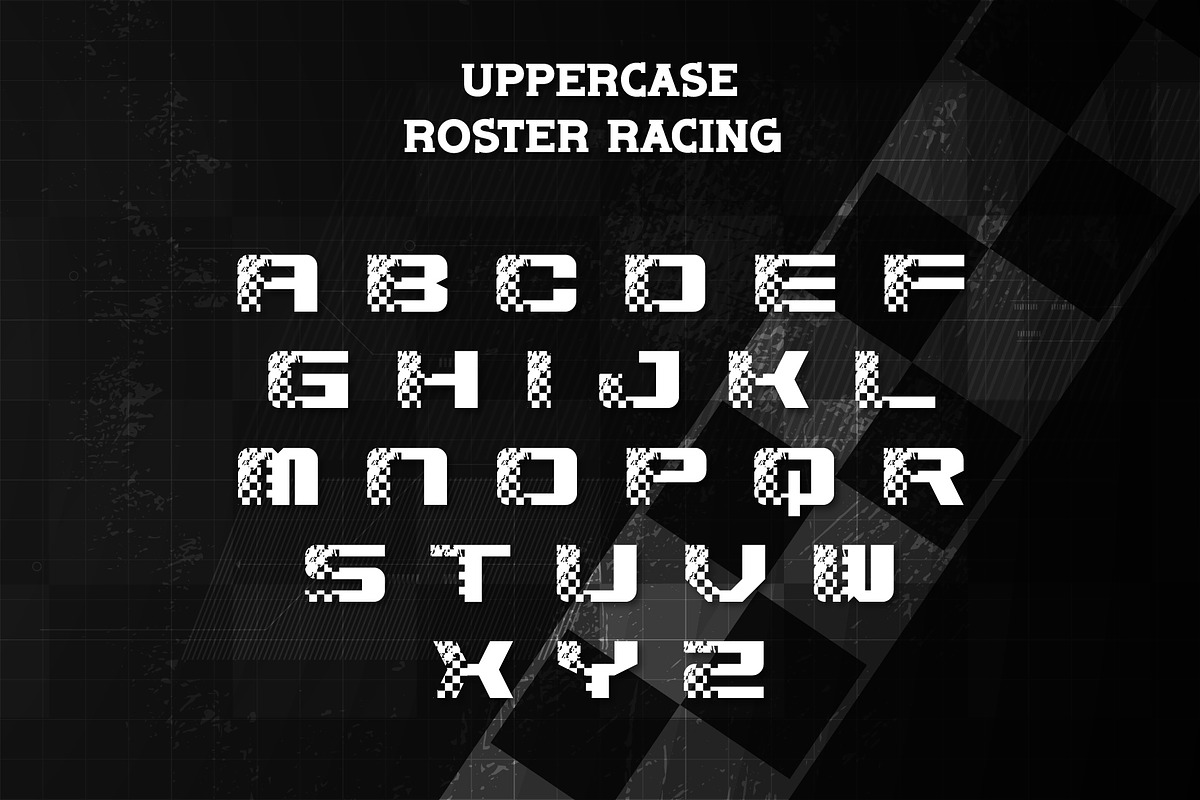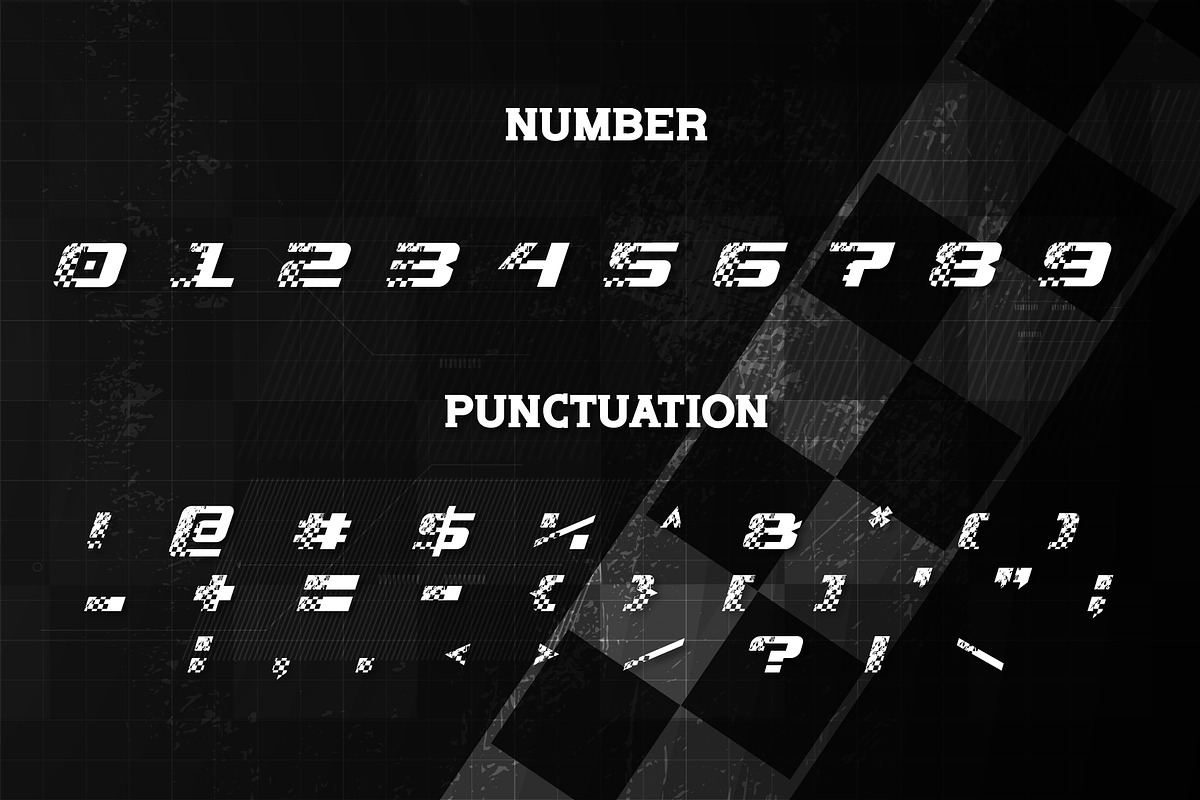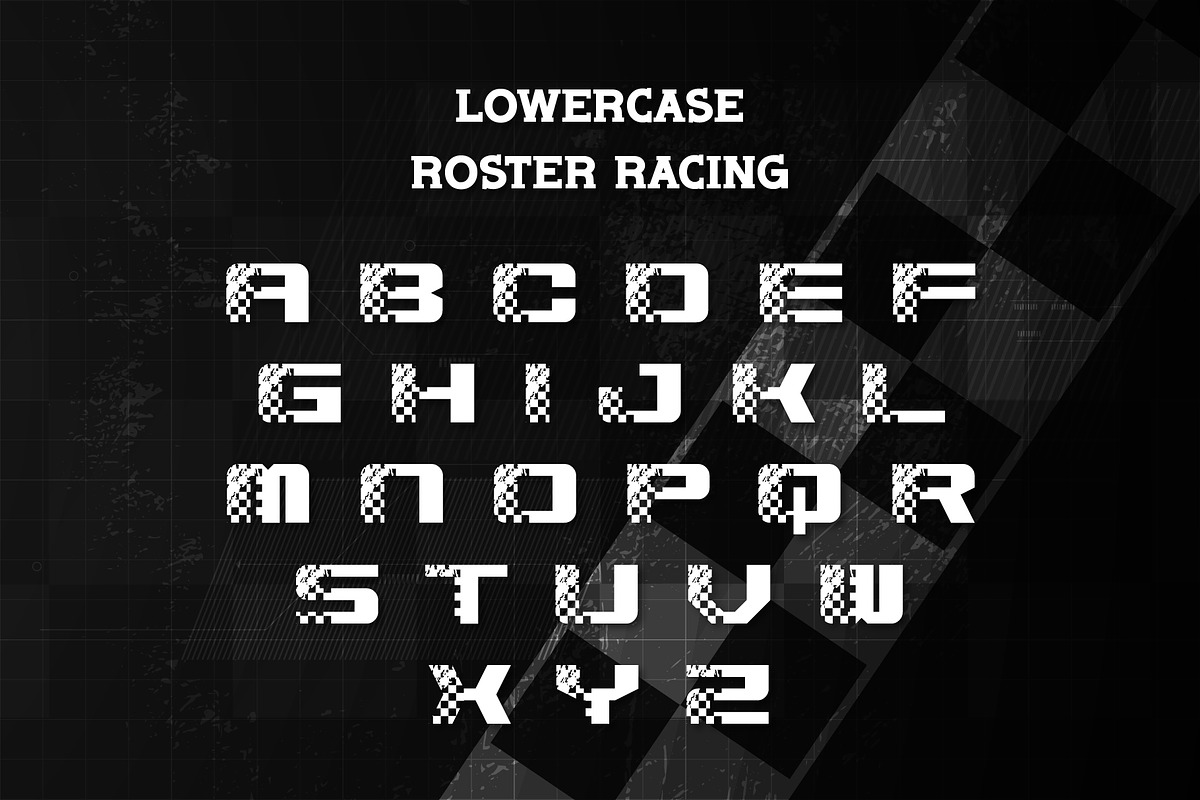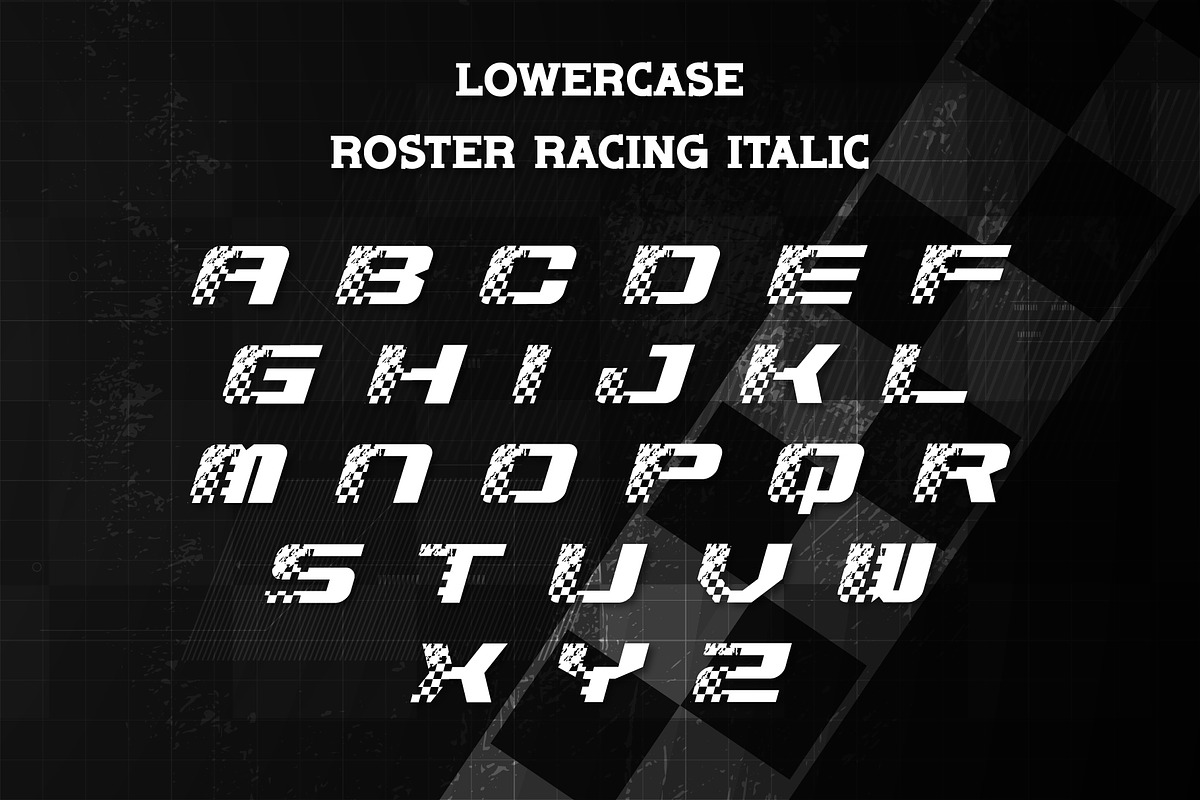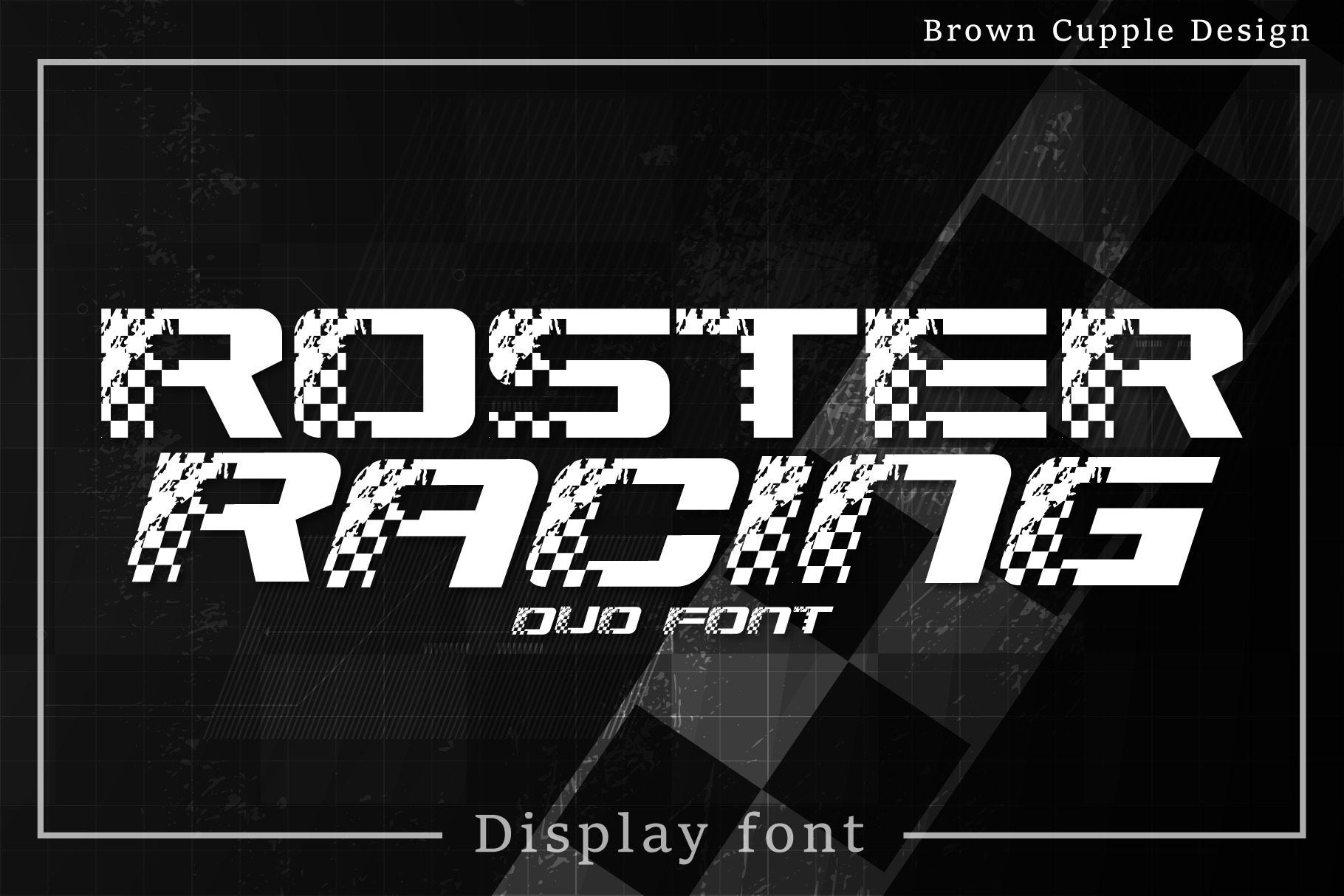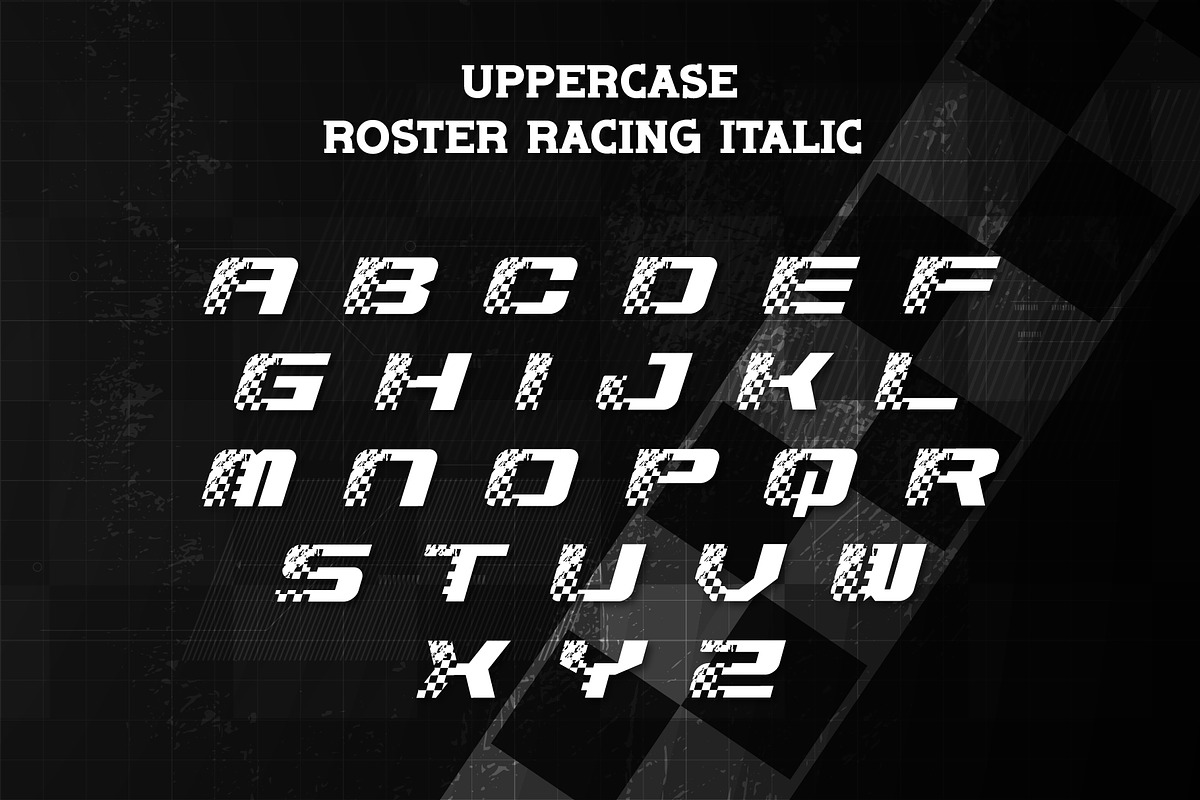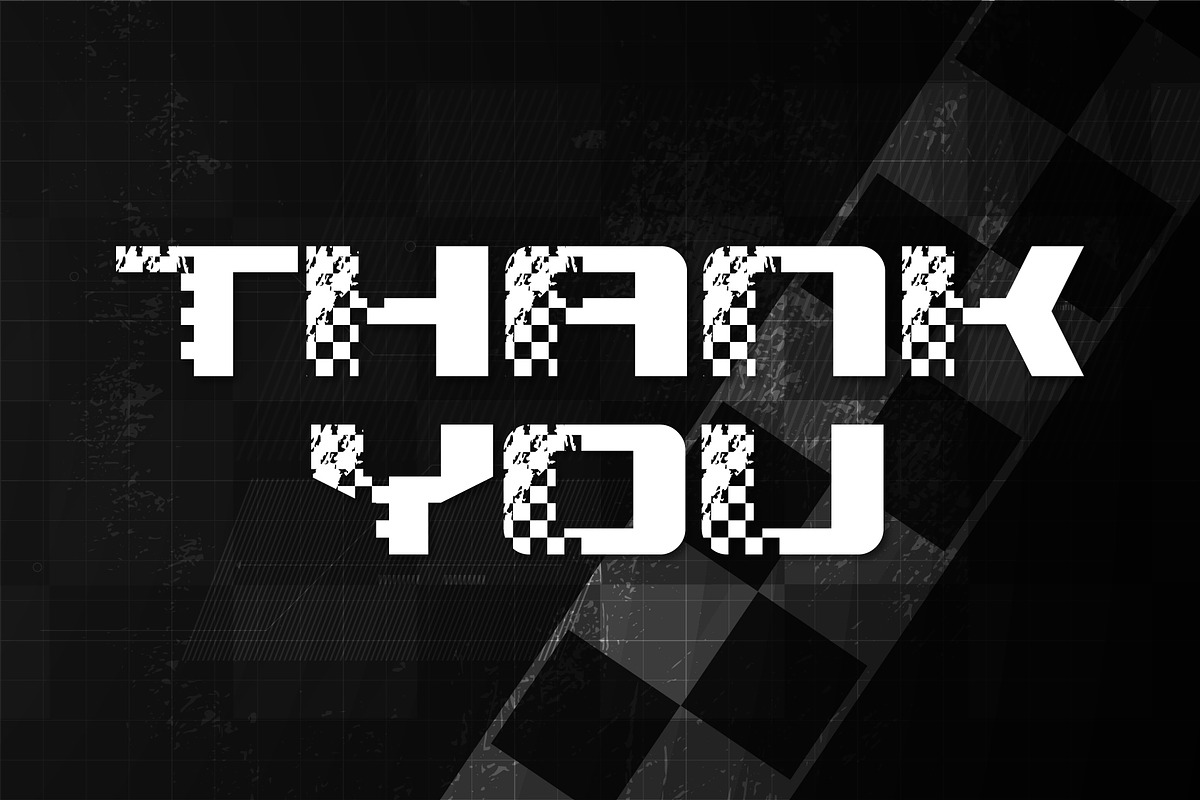
Roster Racing - Decorative Font
Roster Racing is a cool race-styled decorative font. You can use it for various projects such as blog posts, logos, branding, ads, invitations, greeting cards, planners, photo albums, decorations, and more. Add it to any of your designs, and enjoy the results!